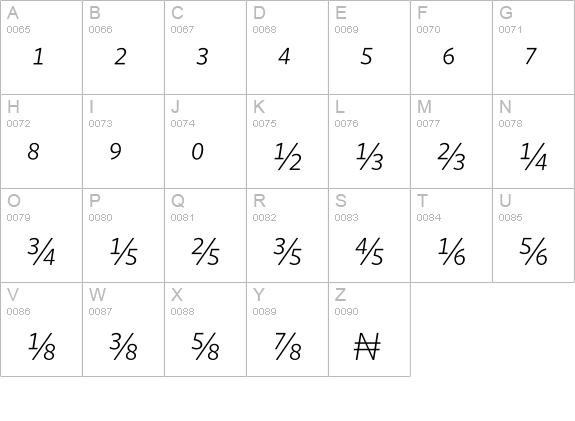
WhitneyNumeric-LightItalic is a modern and sleek font that combines elegance and readability. Its light italic style adds a touch of sophistication to any design project, making it perfect for headers, titles, and captions. This font's clean lines and well-balanced proportions ensure excellent legibility, even at smaller sizes. The subtle italic slant adds a sense of movement and flair, making it ideal for conveying a sense of dynamism and energy. WhitneyNumeric-LightItalic is not only visually stunning but also highly versatile. Its sophisticated design makes it suitable for a range of applications, from digital interfaces and websites to print materials such as brochures, magazines, and posters. What makes WhitneyNumeric-LightItalic even more remarkable is that it is available for free download at FontsMarket.com. You can easily access this font and bring a touch of elegance to your designs without any cost. So, whether you're a professional designer or a hobbyist, WhitneyNumeric-LightItalic is a must-have font in your collection. Its beauty, versatility, and the fact that it is freely available to download at FontsMarket.com make it a valuable resource for all your design needs.